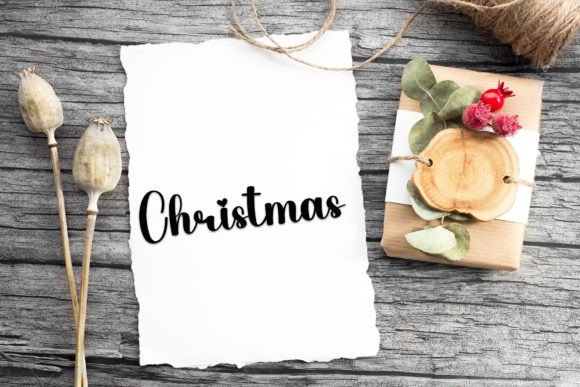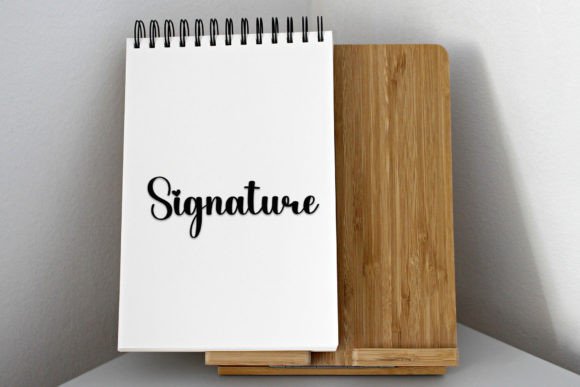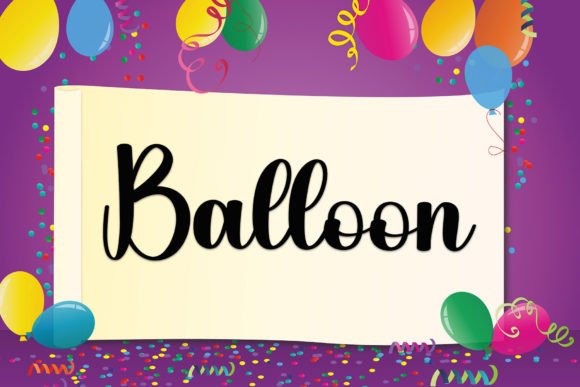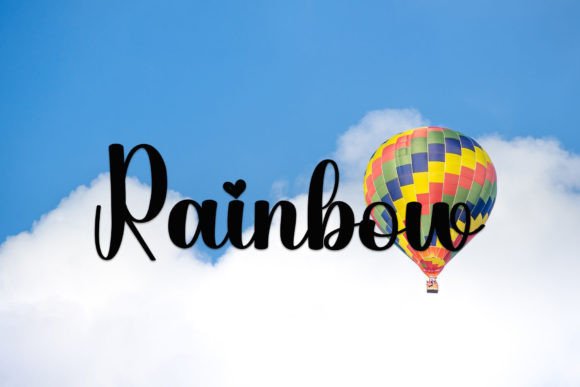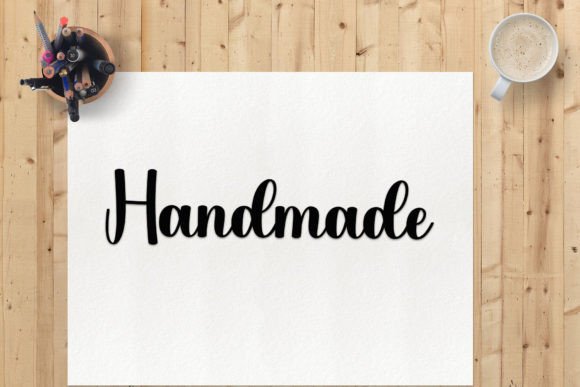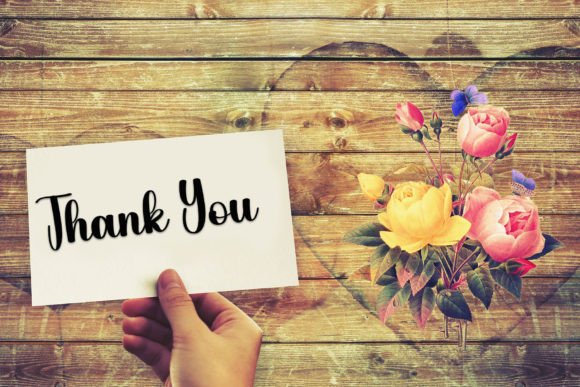
Candy Font: A Cool and Refreshing Script Font for Your Designs
Are you looking for a font that can add a touch of sweetness and uniqueness to your designs? Look no further than the Candy Font! This cool and thick script font is perfect for designers and crafters who want to create beautiful and refreshing designs that stand out from the crowd.
What Makes Candy Font Special?
Candy Font is a natural and unique script font that is incredibly fitting for a wide range of designs. Its thick and bold strokes make it perfect for headlines, titles, and any other design element that needs to grab attention. The font’s playful and whimsical style also makes it ideal for cartoon-related designs, children’s games, and other creations that require a lovely touch.
Features of Candy Font
- Cool and Thick Script Font: Candy Font is a script font with a thick and bold style that makes it perfect for designs that need a statement piece.
- Natural and Unique Style: The font’s natural and unique style makes it incredibly fitting for a wide range of designs, from playful and whimsical to elegant and sophisticated.
- Perfect for Cartoon-Related Designs: Candy Font is particularly crafted for cartoon-related designs, children’s games, and other creations that require a fun and playful touch.
- Easy to Read: Despite its thick and bold style, Candy Font is easy to read, making it perfect for designs that need to communicate a message clearly.
Uses of Candy Font
Candy Font is a versatile font that can be used for a wide range of designs, including:
- Cartoon-Related Designs: Candy Font is perfect for cartoon-related designs, such as animated movies, TV shows, and comics.
- Children’s Games: The font’s playful and whimsical style makes it ideal for children’s games, puzzles, and activity books.
- Branding and Packaging: Candy Font can be used for branding and packaging designs that need a fun and playful touch.
- Signage and Displays: The font’s thick and bold style makes it perfect for signage and displays that need to grab attention.
Tips for Using Candy Font
Here are some tips for using Candy Font in your designs:
- Use it as a Headline Font: Candy Font is perfect for headlines and titles, so use it to grab attention and make a statement.
- Pair it with Other Fonts: Candy Font can be paired with other fonts to create a unique and interesting design.
- Experiment with Colors: The font’s playful and whimsical style makes it perfect for bright and bold colors.
In conclusion, Candy Font is a cool and refreshing script font that is perfect for designers and crafters who want to create beautiful and unique designs. Its natural and unique style makes it incredibly fitting for a wide range of designs, from cartoon-related designs to branding and packaging. With its thick and bold strokes, playful and whimsical style, and ease of readability, Candy Font is an amazing choice for any design project.